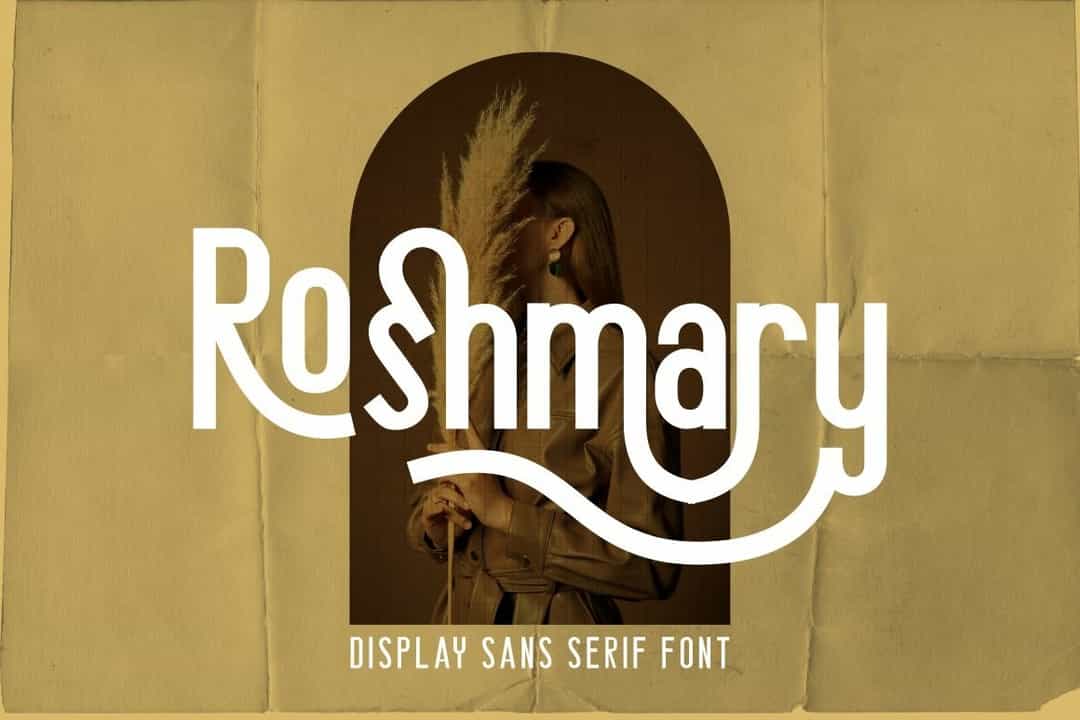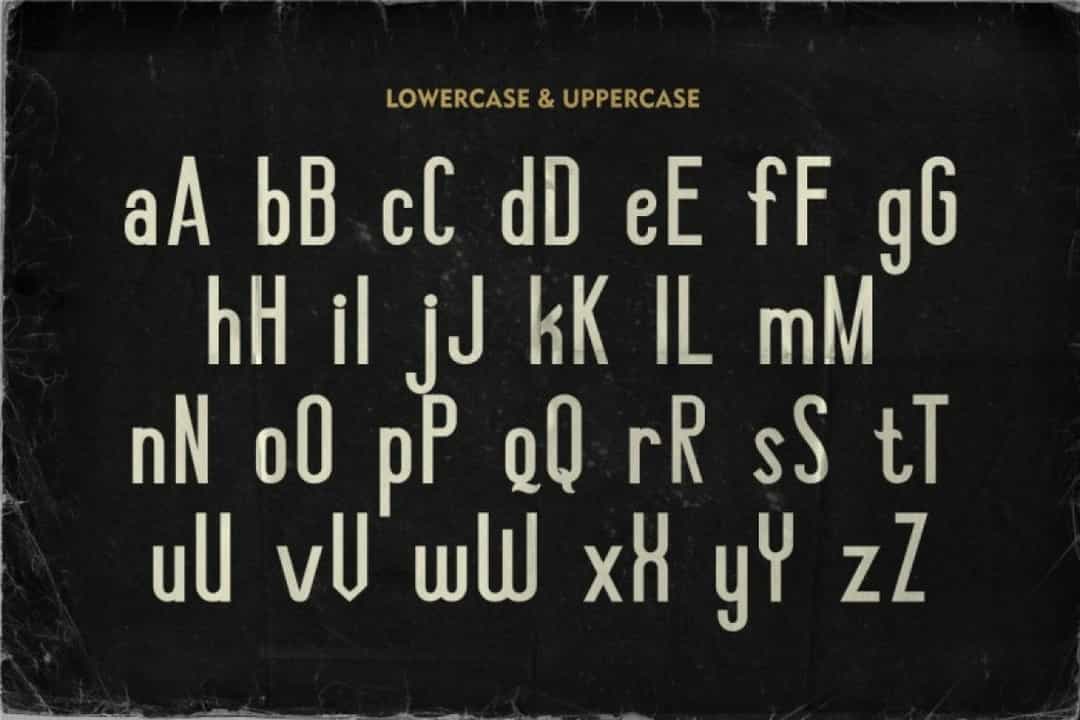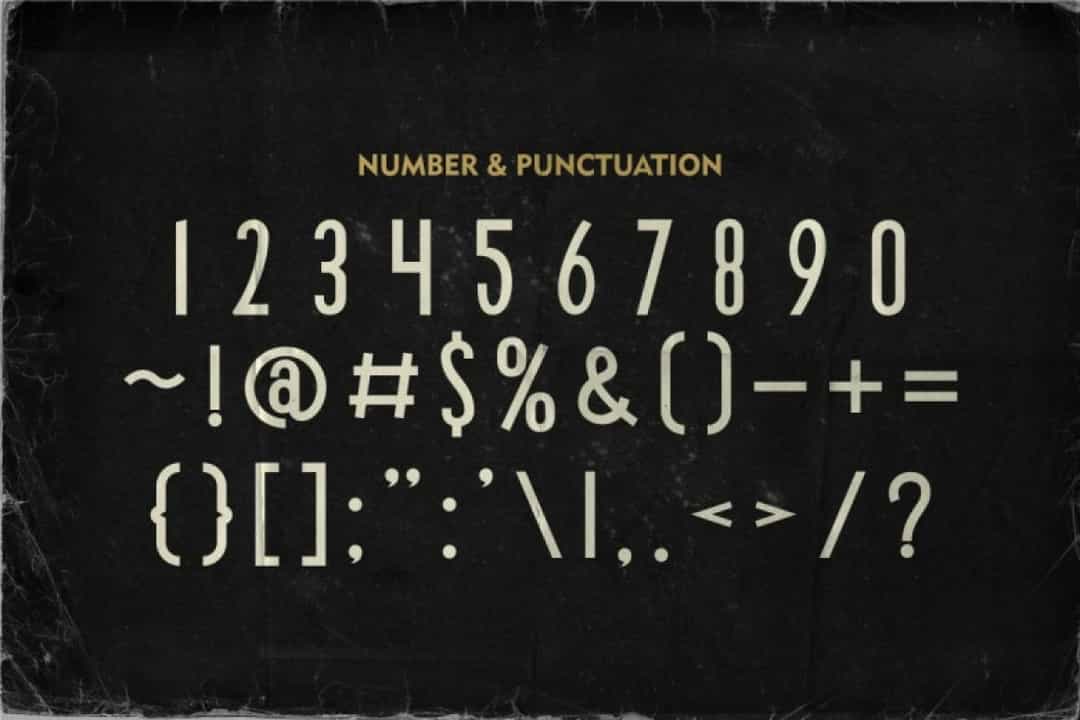
Roshmary is a uni-serif type display featuring gorgeous ligatures and an abundance of versatile glyphs that can be utilized in different ways; multilingual support is provided as well. The typeface itself is clean and simple in appearance yet bold in use – its open type feature boasting multiple font options makes this even easier for creating beautiful letters!